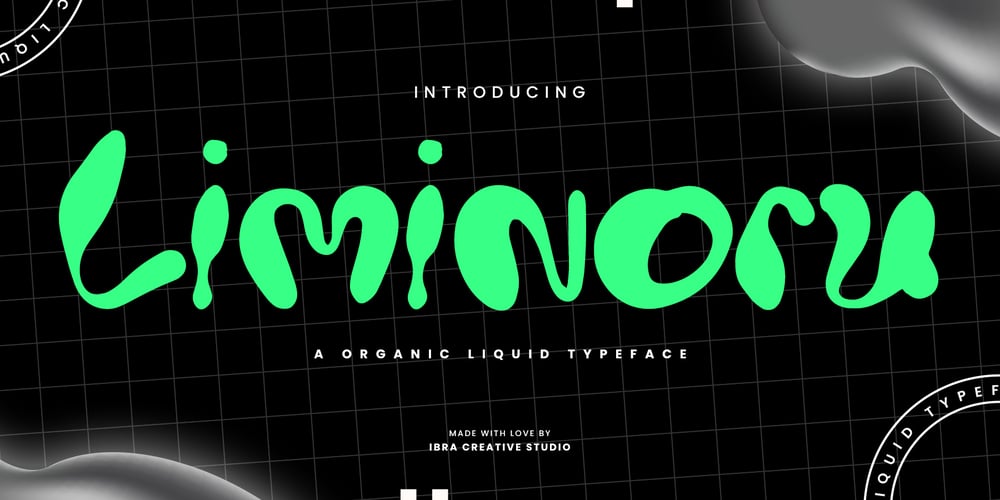
Liminoru Font Family was designed by Roisatul Azizah and published by IbraCreative. Liminoru contains 1 styles and family package options. Liminoru – An Organic Liquid TypfaceLiminoru is an organic liquid typeface that flows seamlessly between characters, embodying a fluidity reminiscent of cascading water or molten metal. The letters dance with a graceful, serpentine rhythm, each stroke resembling the sinuous movement of organic forms. The typeface’s design evokes a sense of natural beauty and dynamic growth, as if the letters are evolving and adapting to their environment. Liminoru’s unique curves and undulating lines create a harmonious balance between sophistication and an elemental, earthy quality. The liquid nature of the font imparts a tactile, almost sensory experience, making it a visually captivating choice for projects that seek to blend elegance with the organic essence of nature.Liminoru is perfect for branding projects, logo, wedding designs, social media posts, advertisements, product packaging, product designs, label, photography, watermark, invitation, stationery, game, fashion and any projects.Fonts include multilingual support for; Afrikaans, Albanian, Czech, Danish, Dutch, English, Estonian, Finnish, French, German, Hungarian, Italian, Latvian, Lithuanian, Norwegian, Polish, Portuguese, Slovak, Slovenian, Spanish, Swedish.